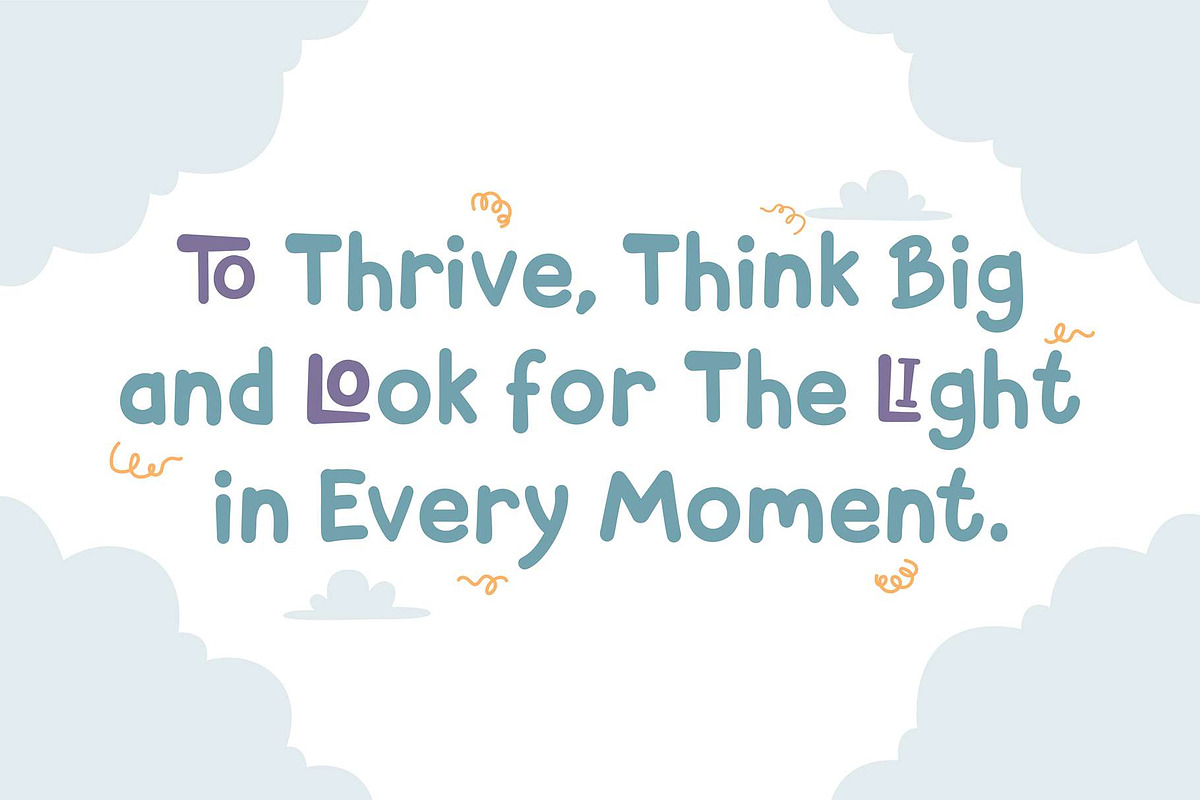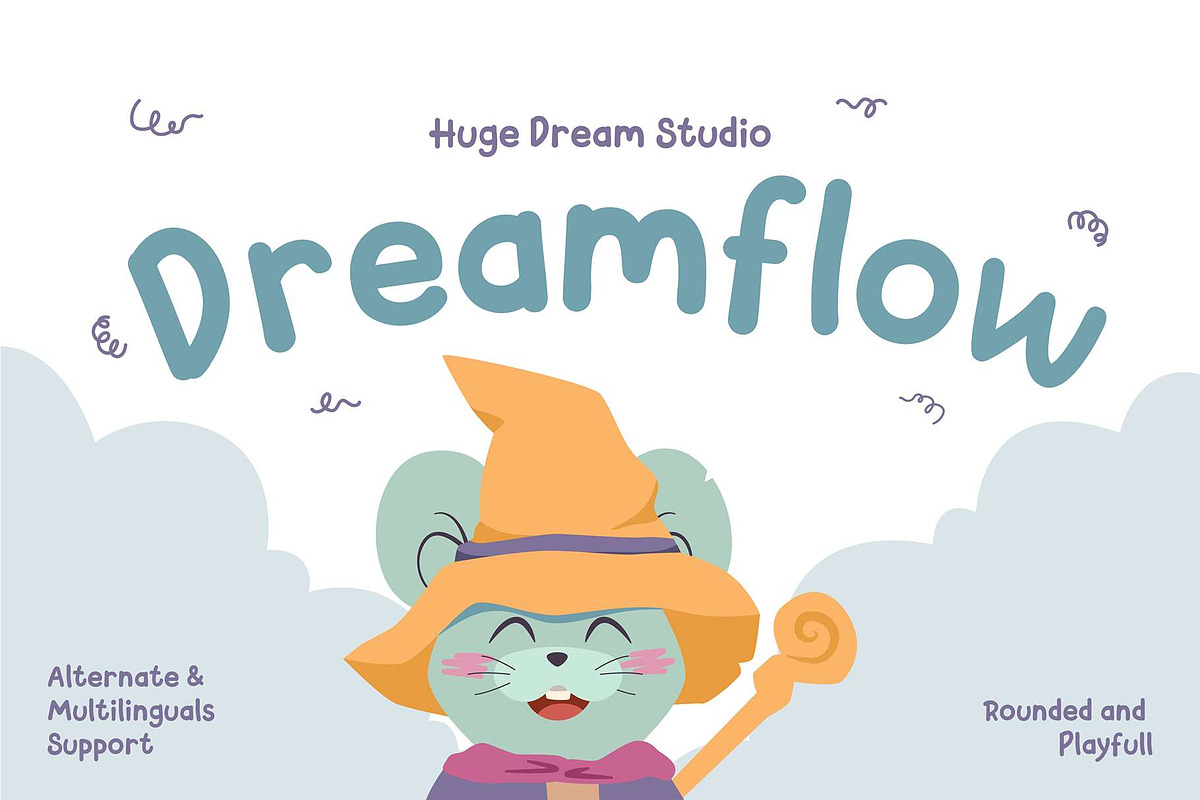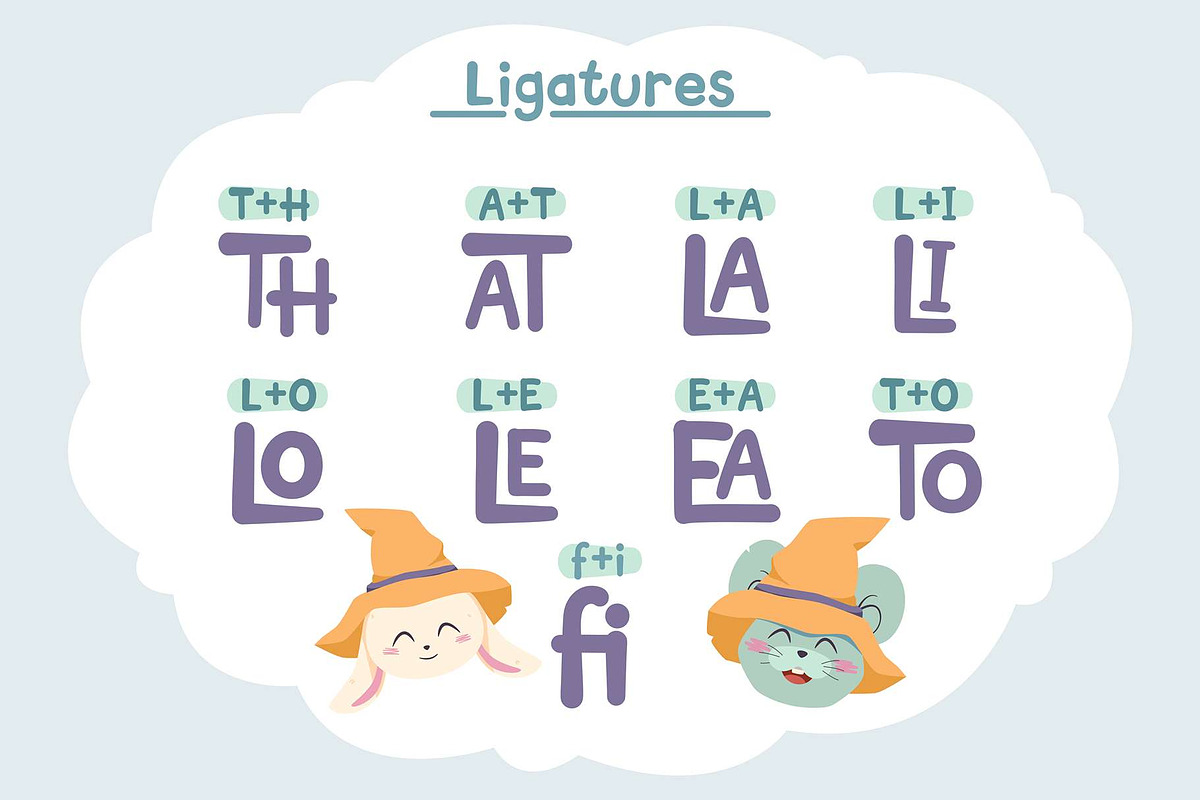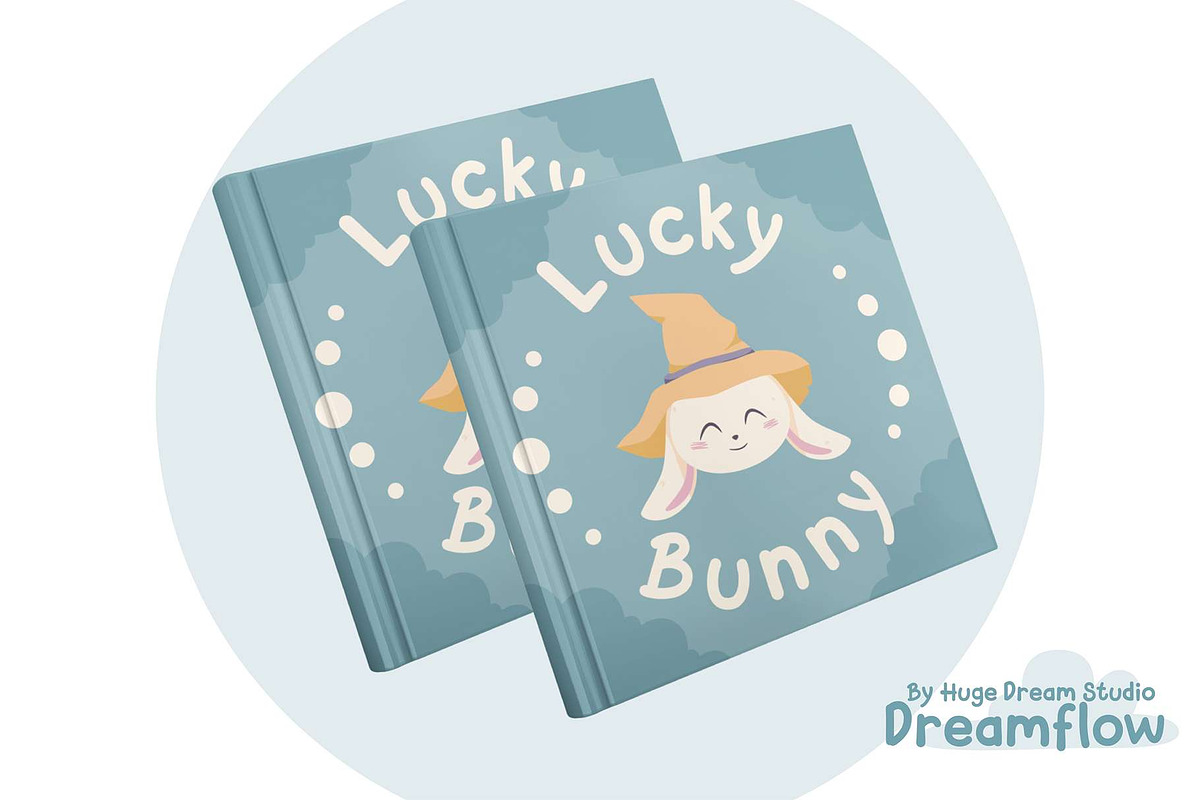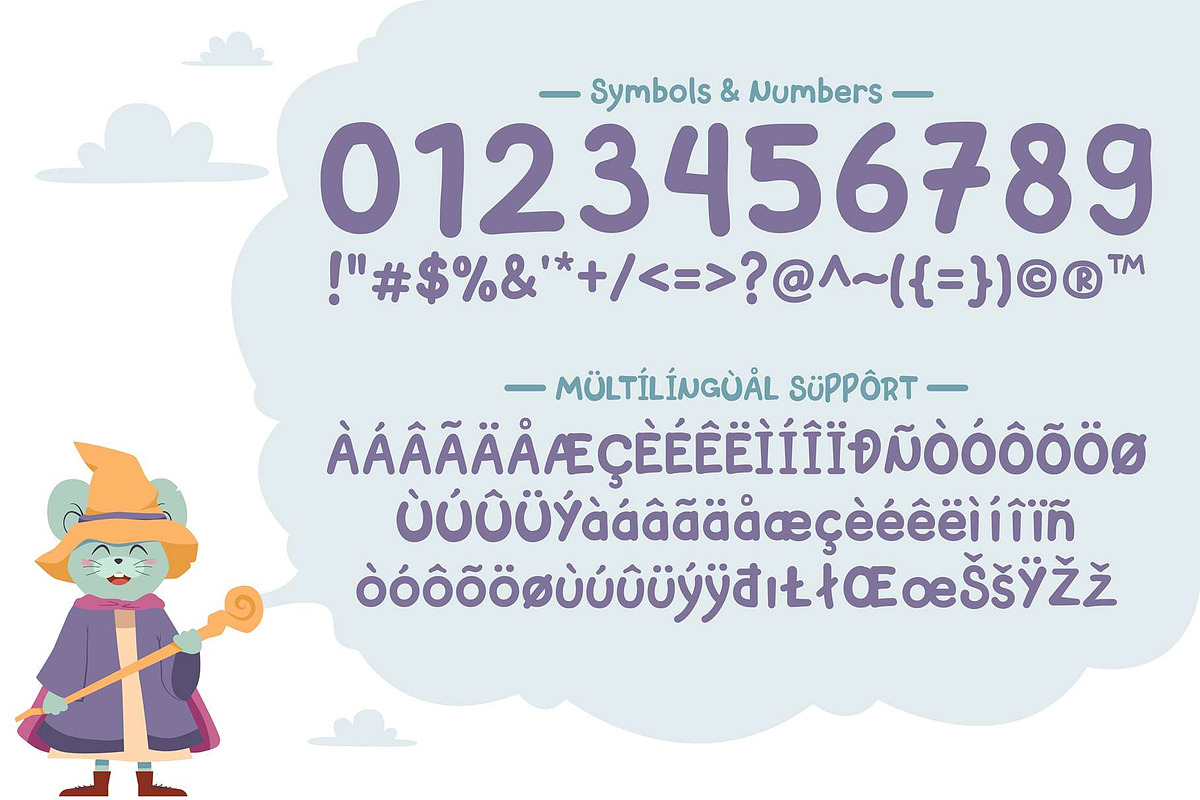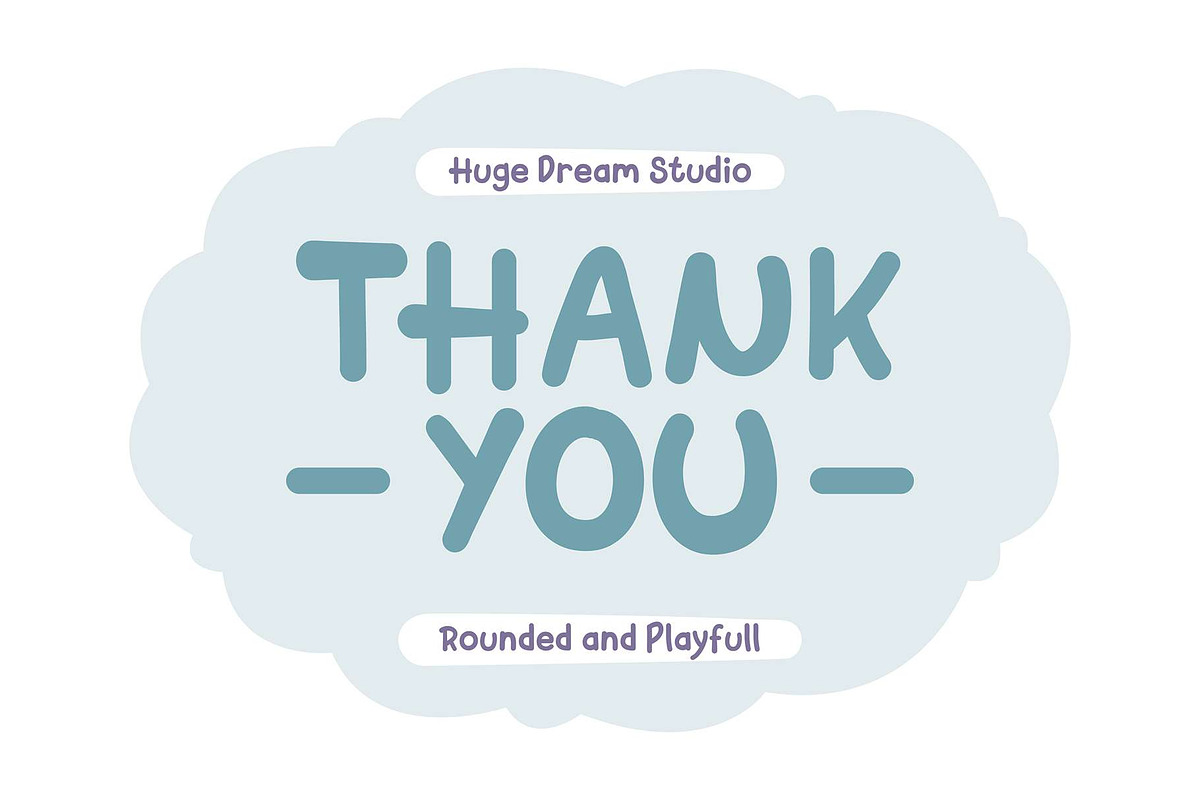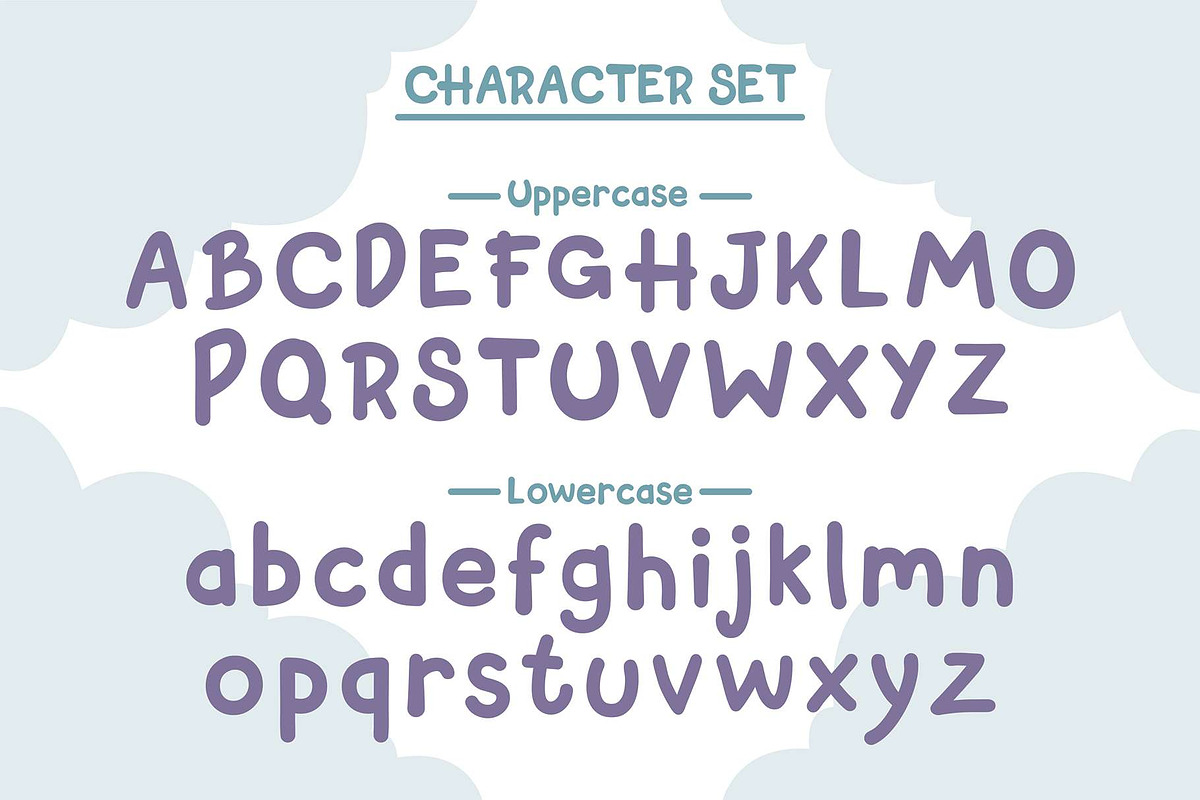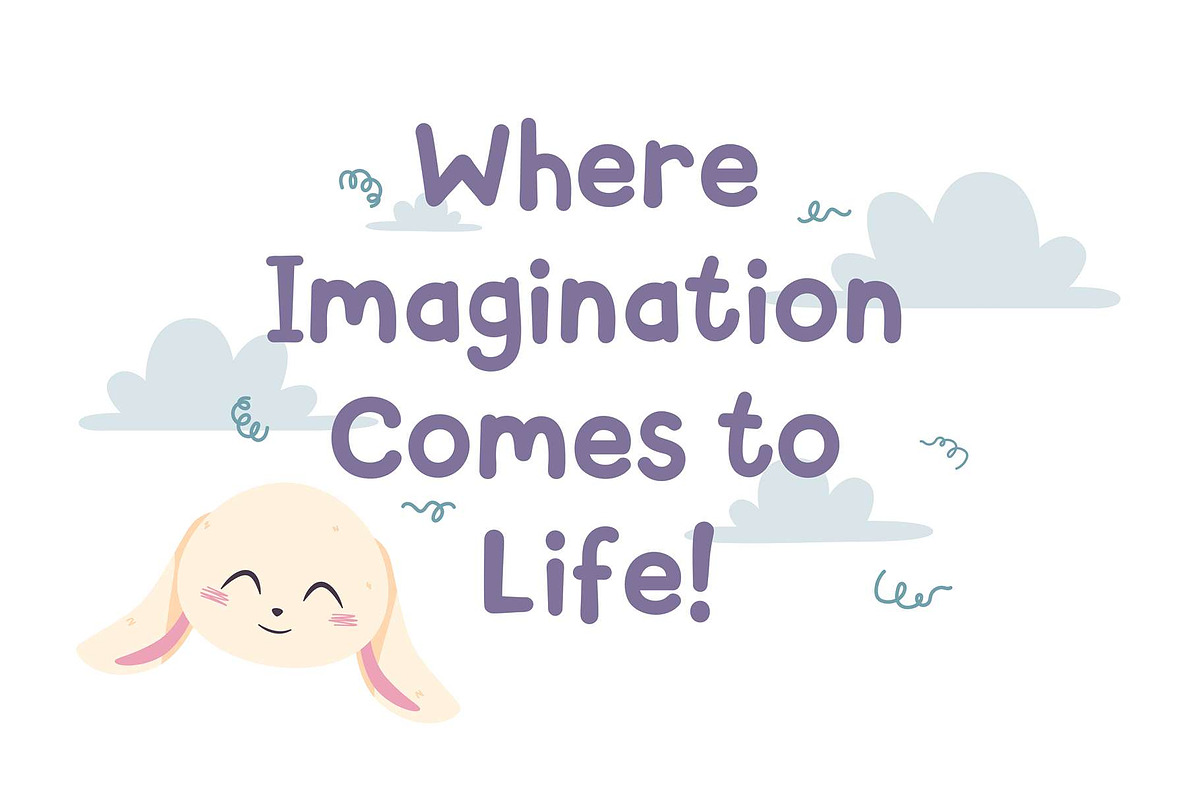
Dreamflow – Rounded and Playfull
Dreamflow – Rounded and Playfull Font
Let your imagination soar with Dreamflow, a delightful rounded font designed to bring warmth and whimsy to Children’s Book, storybooks, and playful designs. With its smooth curves and bouncy letterforms, Dreamflow captures the innocence and joy of childhood, making it perfect for captivating young readers. Whether you’re crafting a bedtime story, an educational book, or a fun poster, Dreamflow adds a touch of magic and friendliness to every word. Its well-balanced readability ensures a seamless experience for both kids and parents alike. Let your stories come to life with Dreamflow where creativity meets pure delight!
Dreamflow – Rounded and Playfull Font features:
- Character Set (Uppercase & Lowercase)
- Punctuation & Numbers
Elevate and explore the design possibilities with this Children’s Book Design Font!